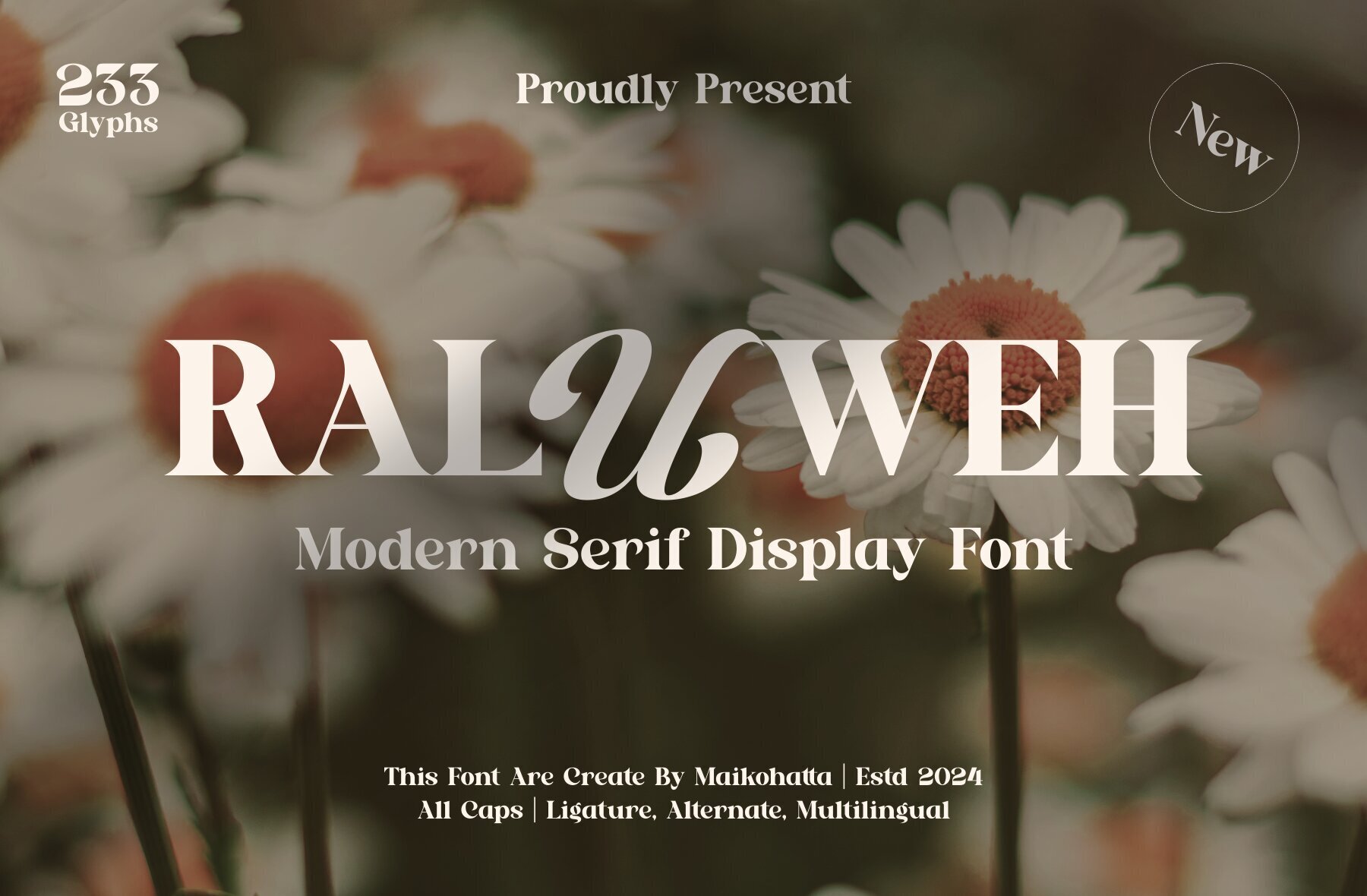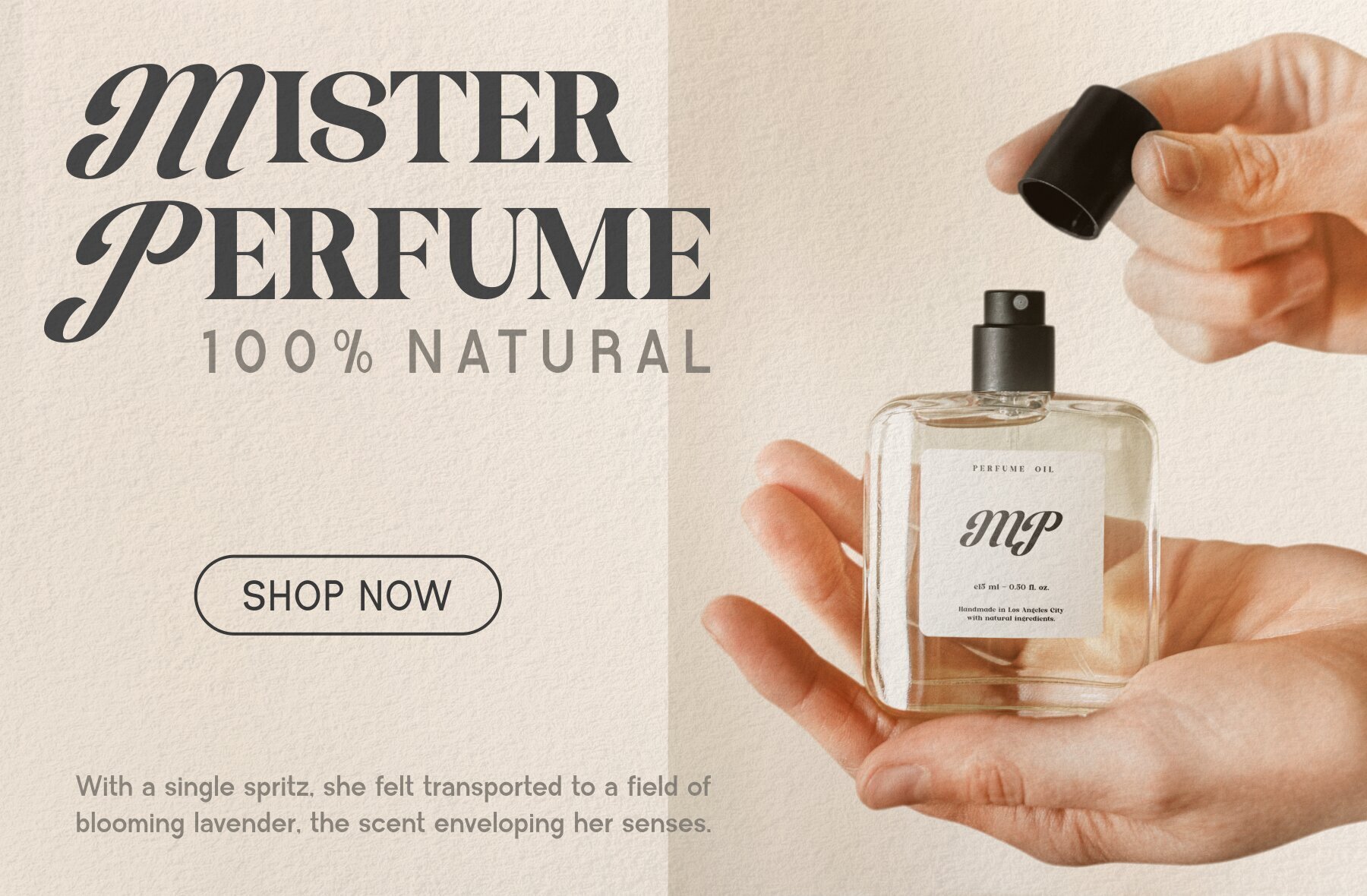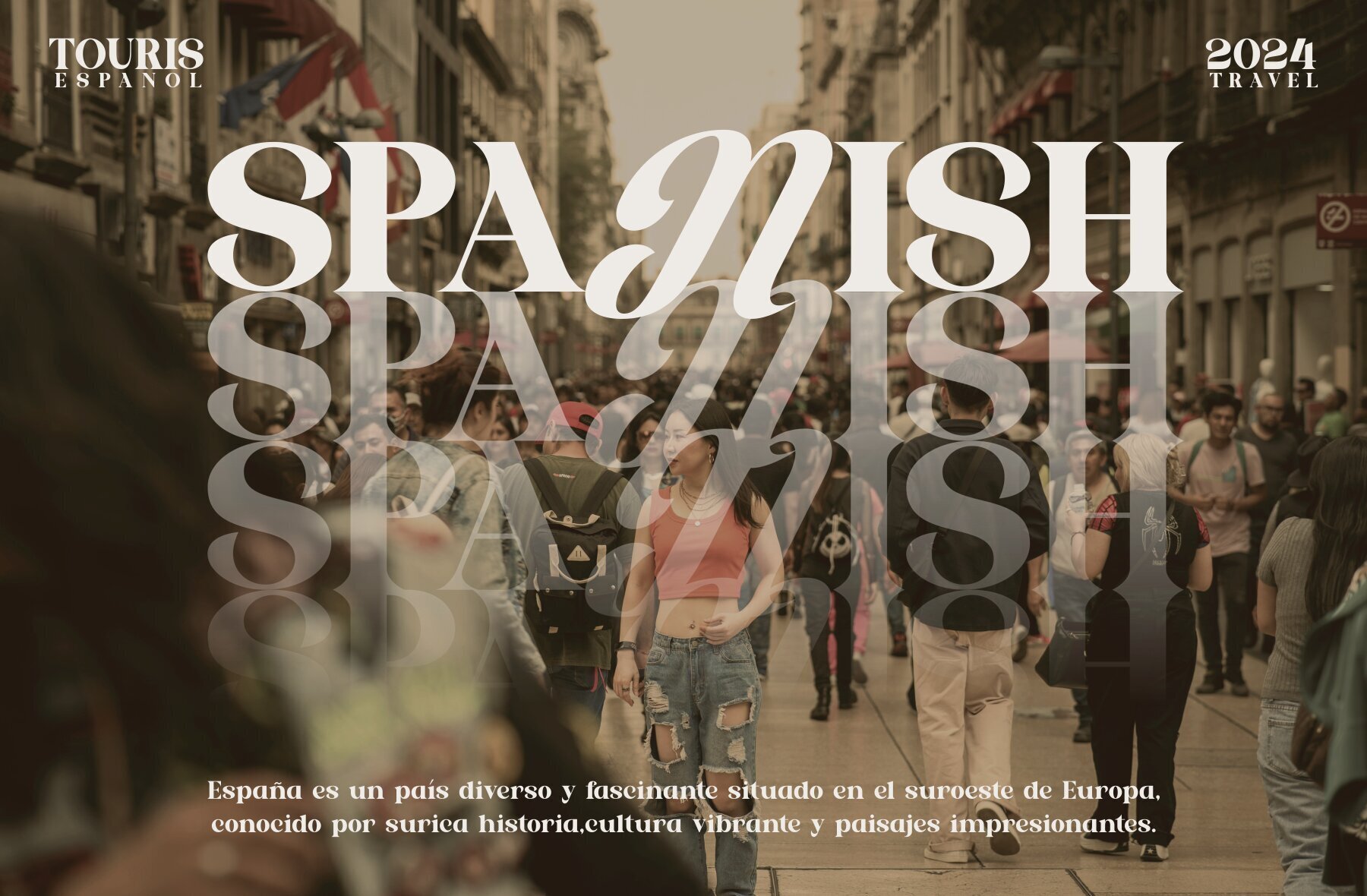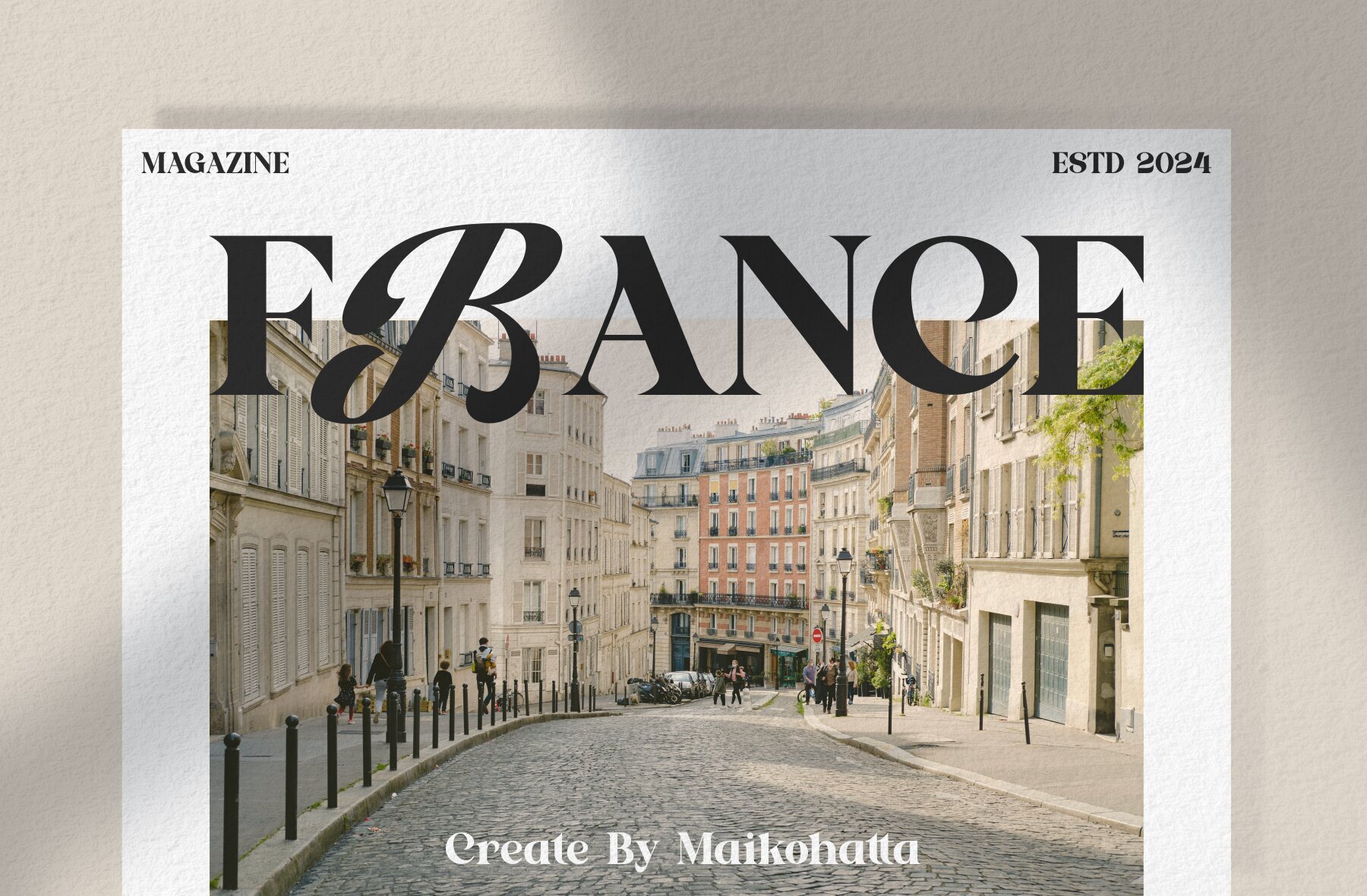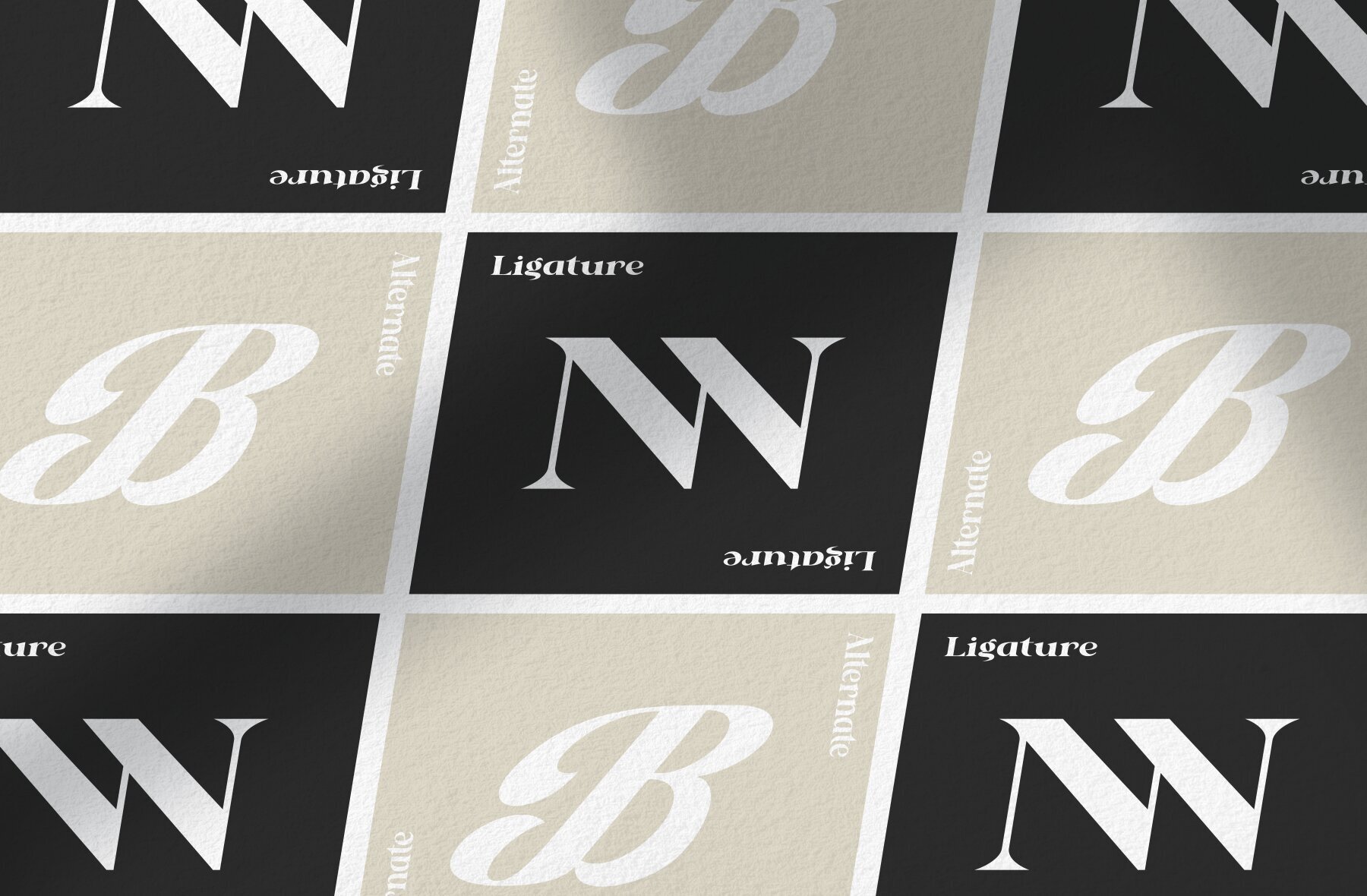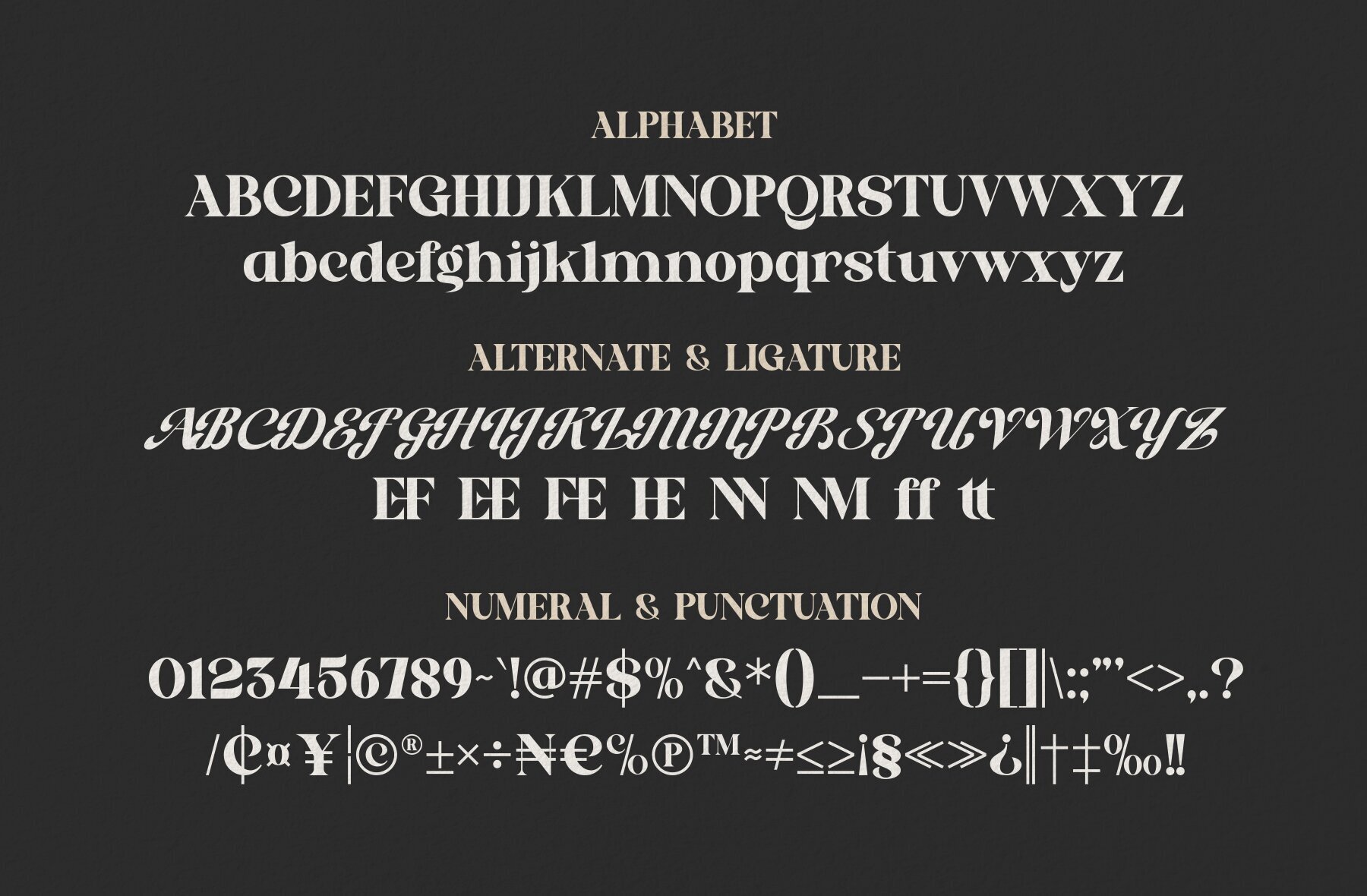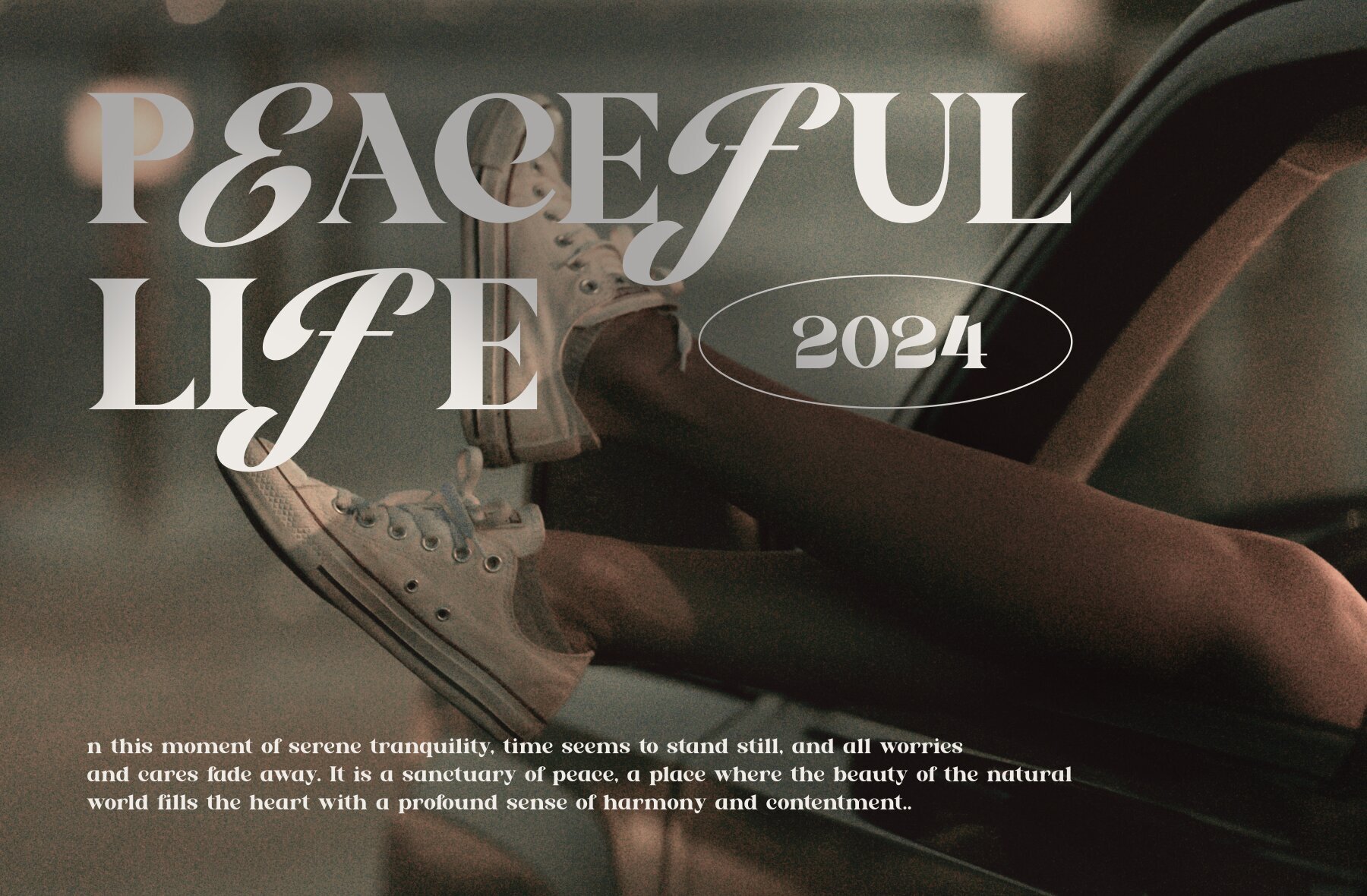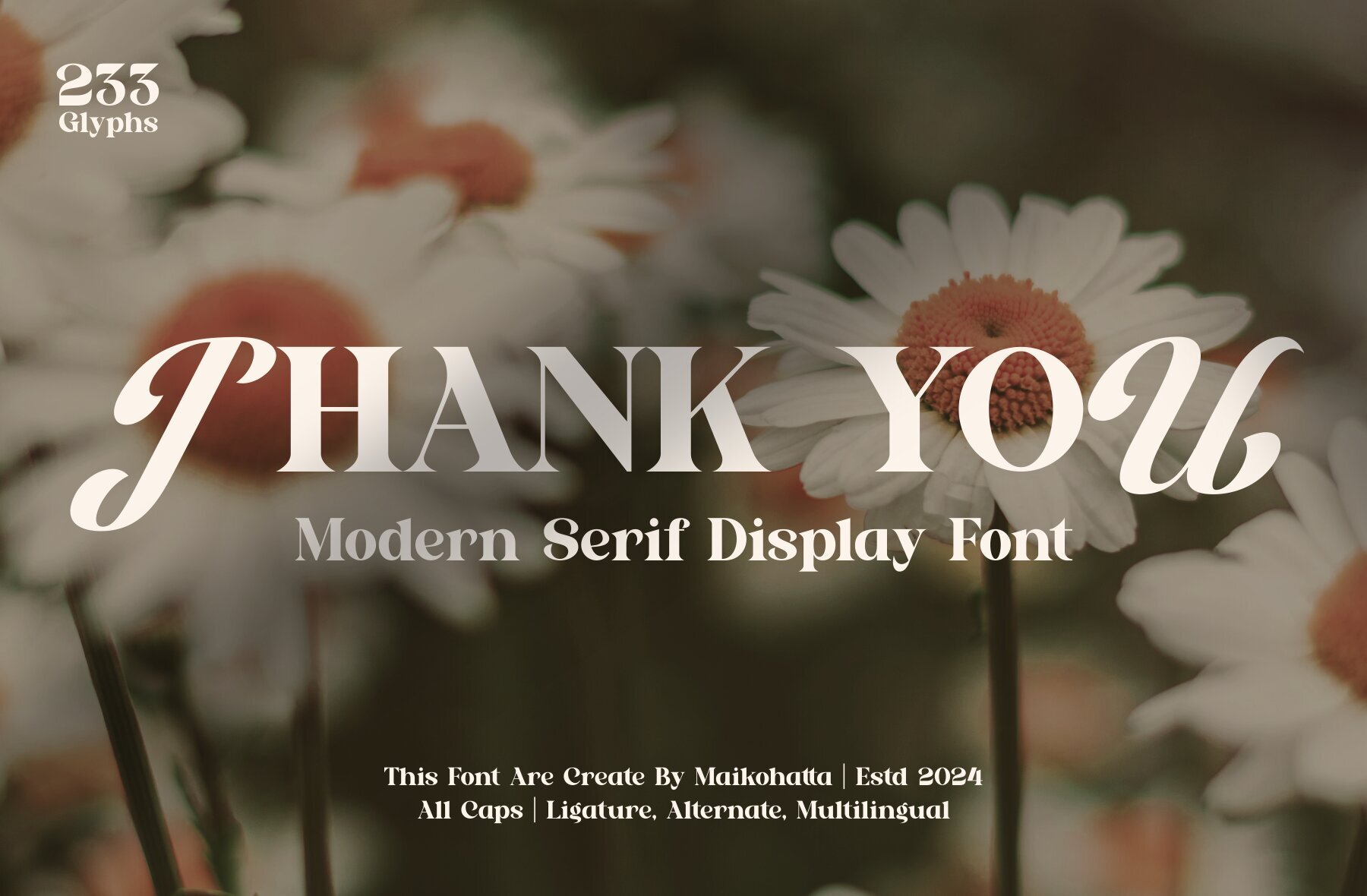
Raluweh Font
Raluweh Regular
This font is a bold, transitional serif typeface marked by its high contrast between thick and thin strokes, which gives it a dramatic and elegant presence. It has the refined sharpness suited for display purposes, such as headings and titles, and would lend a touch of sophistication and authority to any layout. It features modernist influences with geometric touches and is versatile enough to be used in a variety of design contexts.